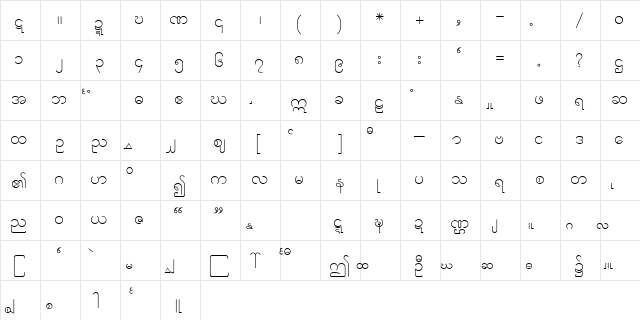
Theiree Regular Font Preview
Theiree Regular
Theiree Regular Font Details
Design Context for Theiree Typeface
Theiree offers clean, dependable letterforms without strong stylistic allegiance, making it a practical choice for designers who need flexibility.